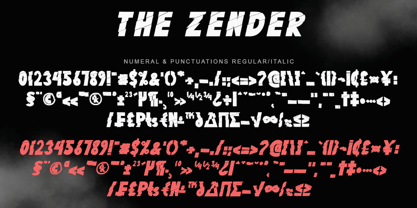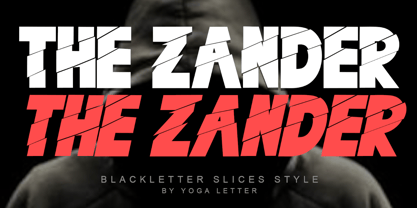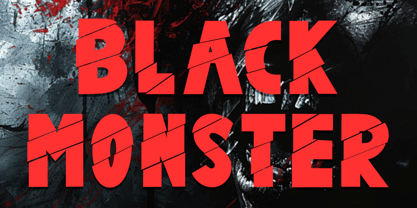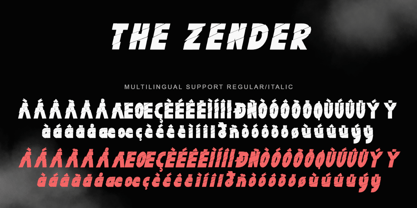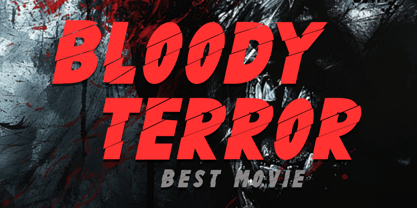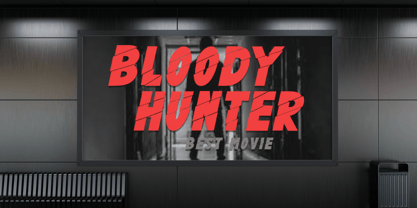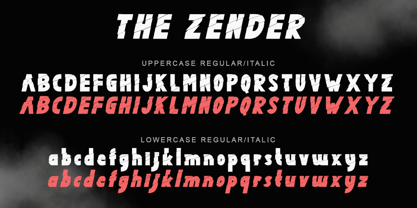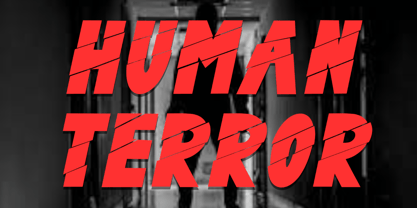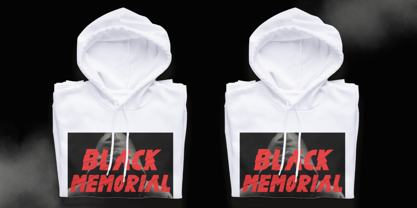
The Zander
by Yoga Letter
The The Zander Font Family was designed by Isroni Yoga Prasetya and published by Yoga Letter. The Zander contains 2 styles and family package options. More about this family
"The Zander" is a display font with cuts on each letter. This font is equipped with two types of fonts, namely regular and italic. Equipped with capital letters, lowercase letters, numbers, punctuation, and multilingual support. Very suitable for business branding, posters, stickers, branding, banners, logos, and others.
Designers: Isroni Yoga Prasetya
Foundry: Yoga Letter